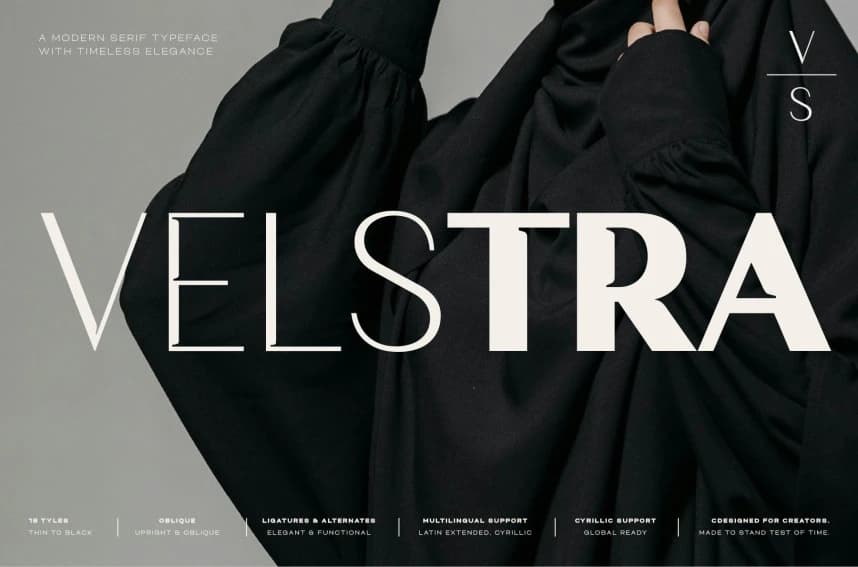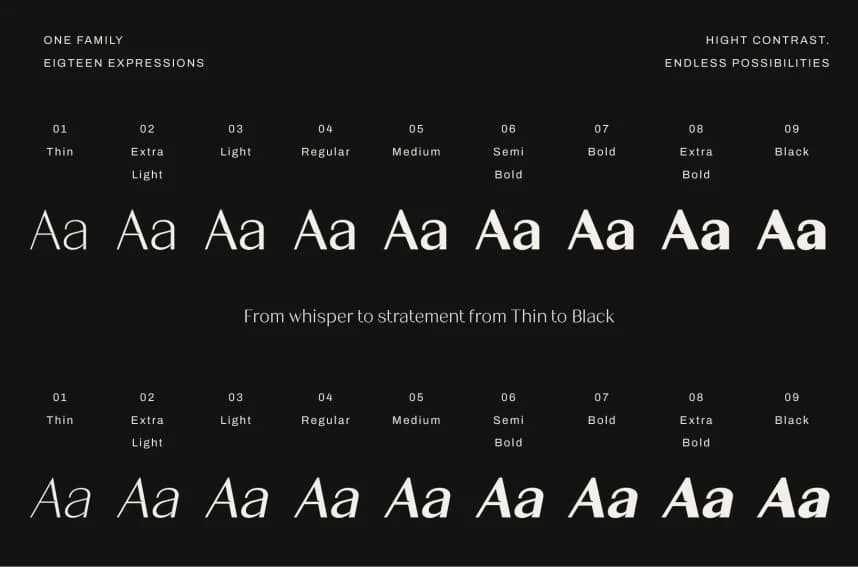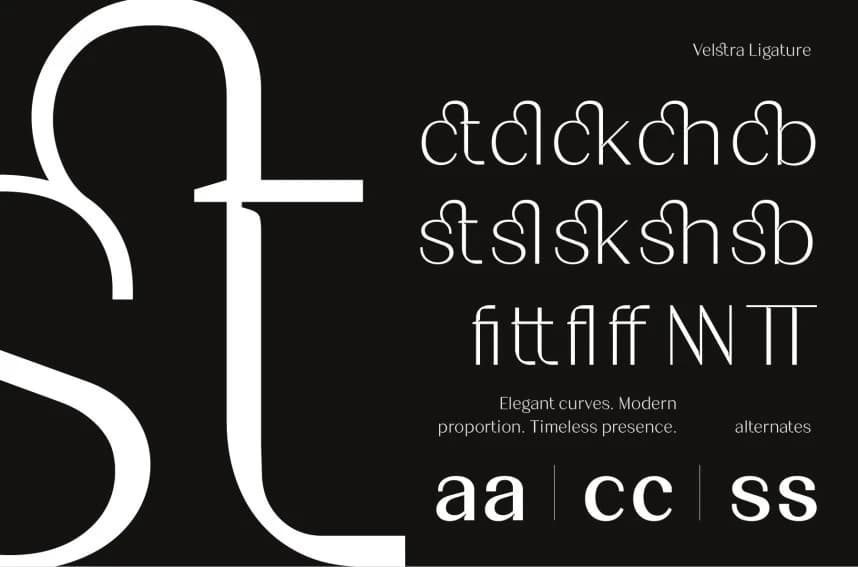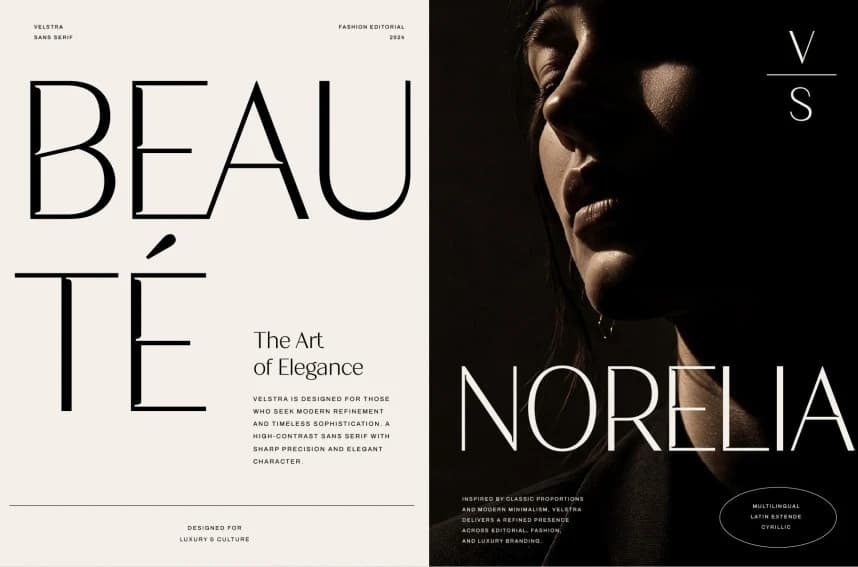
Velstra Font
Velstra Font is a high contrast sans serif typeface family designed to bring elegance, clarity, and modern impact to professional design projects. Featuring 18 styles including upright and oblique, ranging from Thin to Bold, plus a fully flexible Variable Font, Velstra offers complete creative freedom for every visual direction.